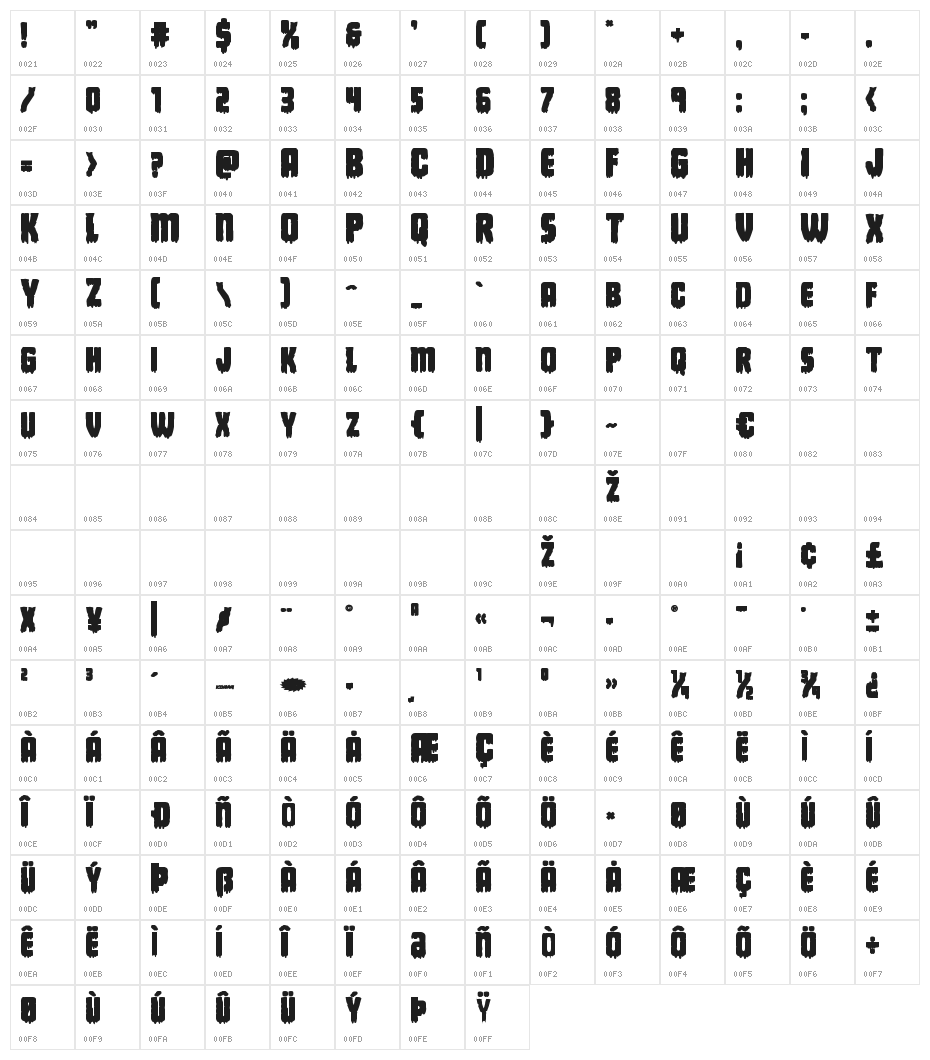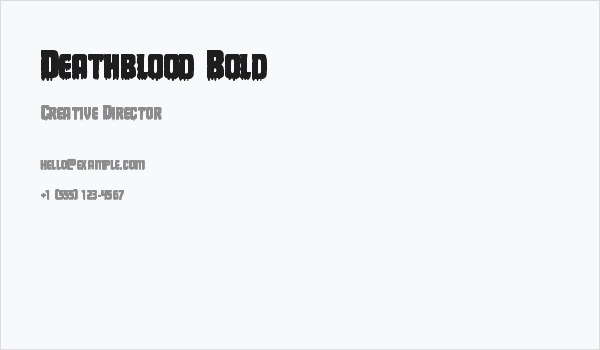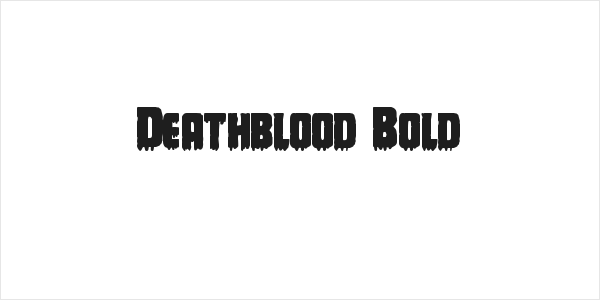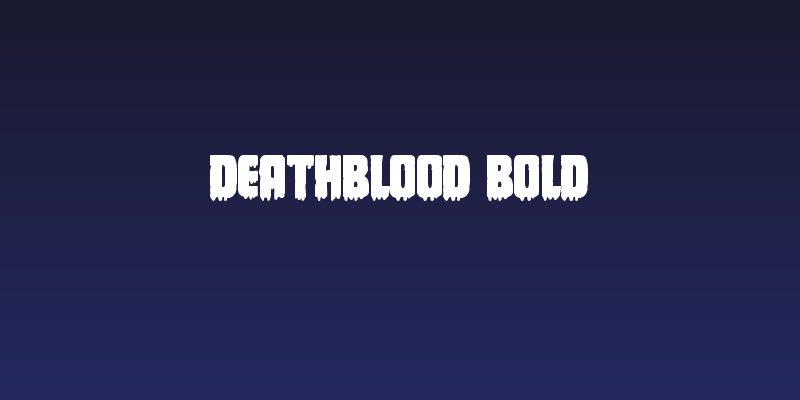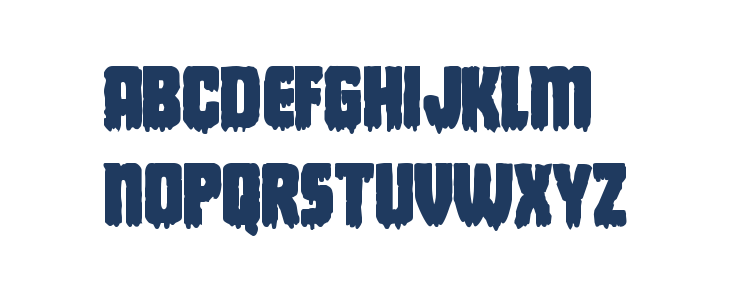
Deathblood Bold Font
Deathblood Bold Description
This font features a bold and dramatic style with a dripping effect that gives it a horror or gothic appearance. The characters are thick and heavy, with uneven edges that create a sense of movement and fluidity. The uppercase and lowercase letters maintain a consistent style, emphasizing the boldness and unique design. Numbers and special characters are equally bold, ensuring a cohesive look across all text elements. The font's distinct style makes it ideal for projects that require a strong visual impact, such as horror-themed designs or Halloween events.
| Use Case | Headlines, Posters, Logos |
| Proposed Projects | Ideal for horror movie posters, Halloween event flyers, or gothic-themed graphic designs. |